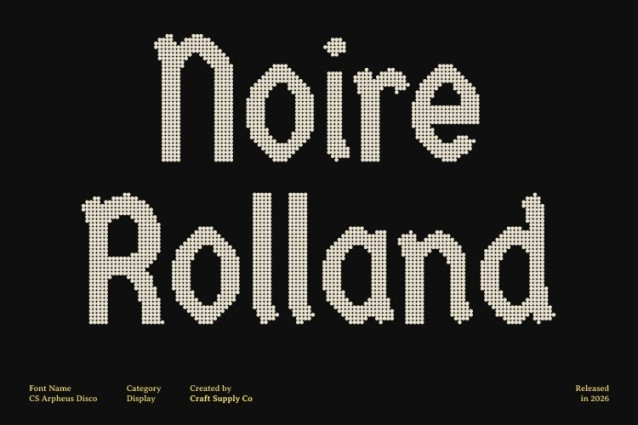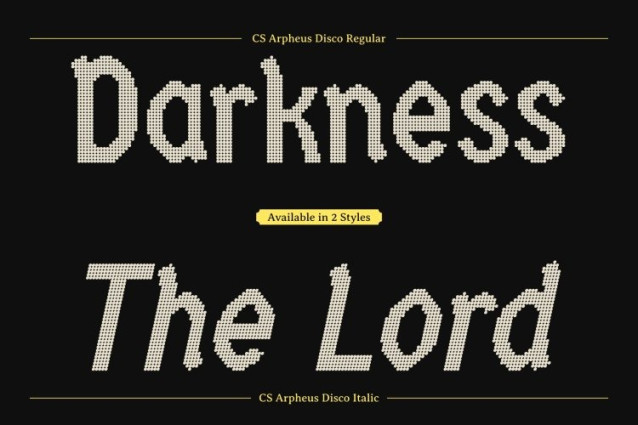
CS Arpheus Disco Font
CS Arpheus Disco Font This is a modern display sans serif font designed to command attention. Its striking letterforms combine contemporary precision with disco-inspired energy, creating a confident visual presence that feels powerful, stylish, and made for the spotlight. Every curve and angle is crafted with intention, resulting in a typeface that looks bold, dynamic, and unmistakably modern.
Stylish Letterforms with Rhythmic Impact
Distinctive shapes and refined geometry give this font its strong personality. Bold proportions, sharp details, and balanced flow create a visual rhythm that echoes music, movement, and celebration. Each letter stands out on its own while working seamlessly within expressive, high-impact compositions.
Clarity with Charisma for Statement Design
Designed for clear communication, this font balances readability with attitude. Its clean construction supports bold messaging in energetic layouts, making it perfect for headlines, logos, and statement visuals that need both strength and style.
Perfect for Branding, Posters, and Party-Driven Visuals
This font shines in modern branding, posters, event graphics, social media visuals, and contemporary creative projects. Its bold display character adds sophistication, confidence, and disco-powered energy ideal for designers who want typography that feels strong, stylish, and ready to own the room.